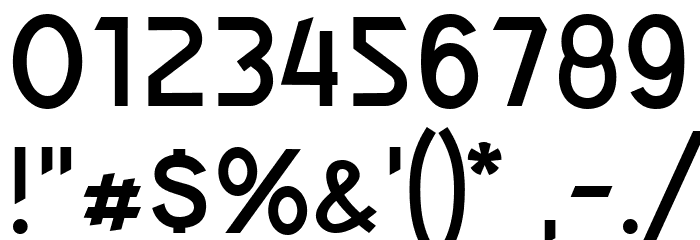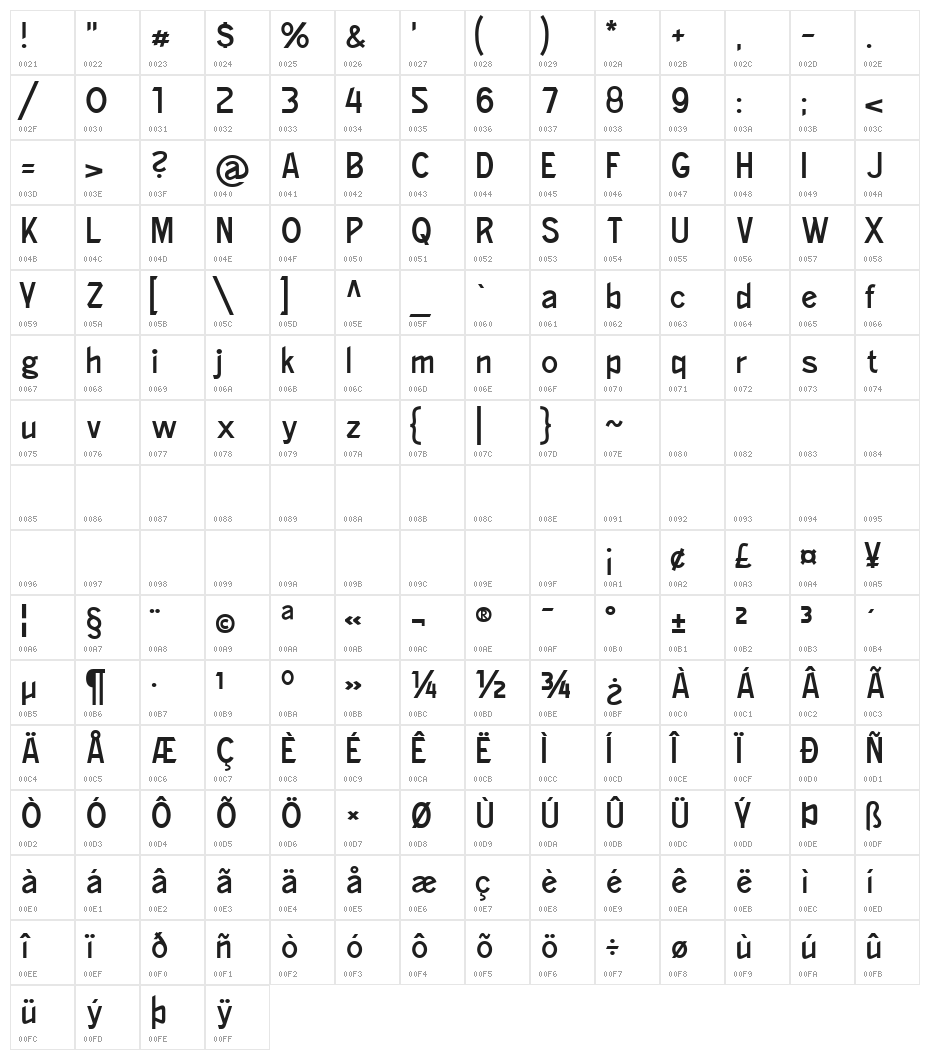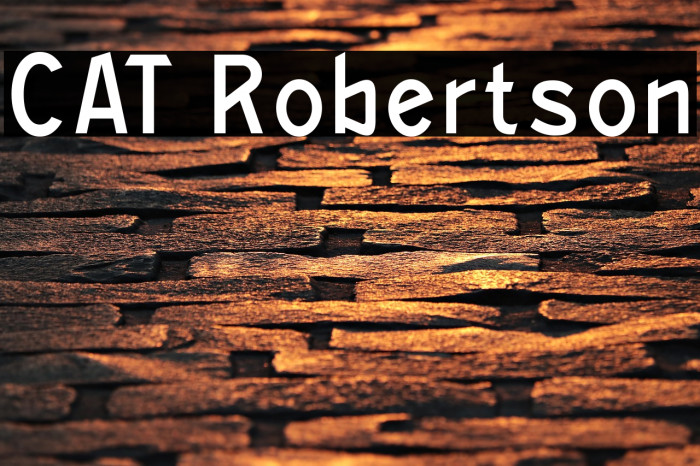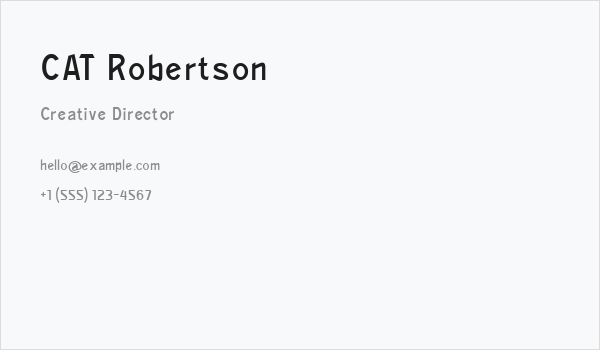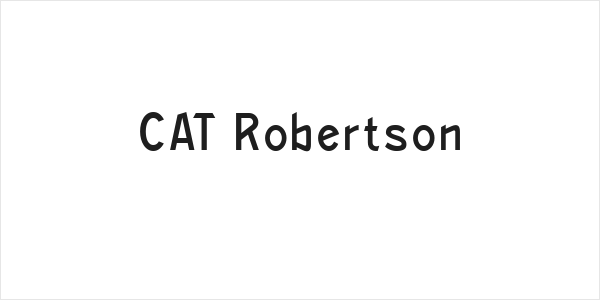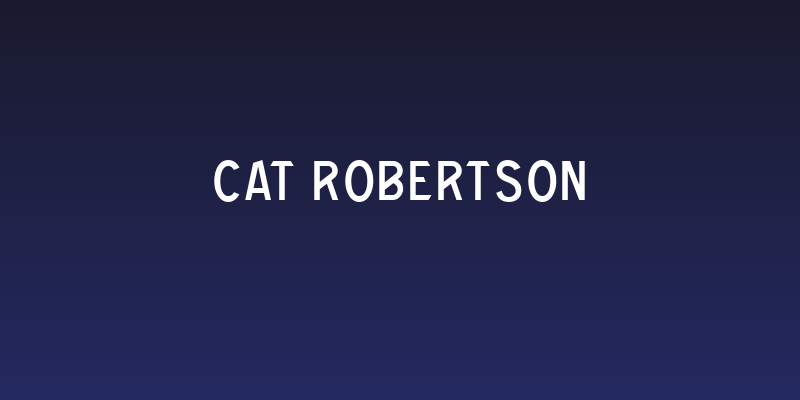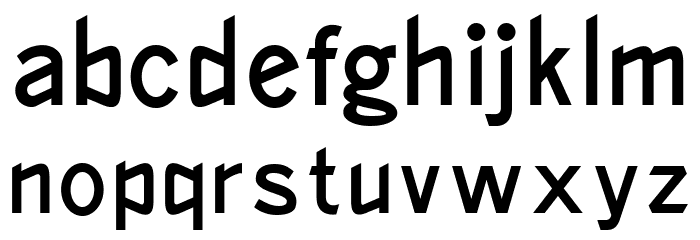
CAT Robertson Font
CAT Robertson Description
This font features a clean and modern sans-serif style with uniform stroke widths, giving it a balanced and professional appearance. The characters are well-defined with a geometric influence, making them highly legible at various sizes. The uppercase letters are bold and assertive, while the lowercase letters maintain a consistent and harmonious flow. Numbers are clear and distinct, ensuring readability in numerical data. Special characters are designed to match the overall aesthetic, providing versatility for different design needs.